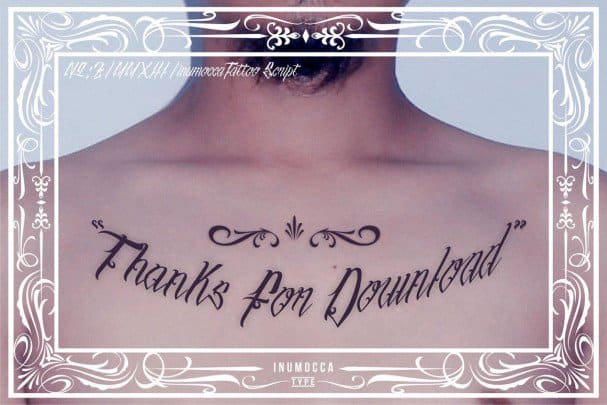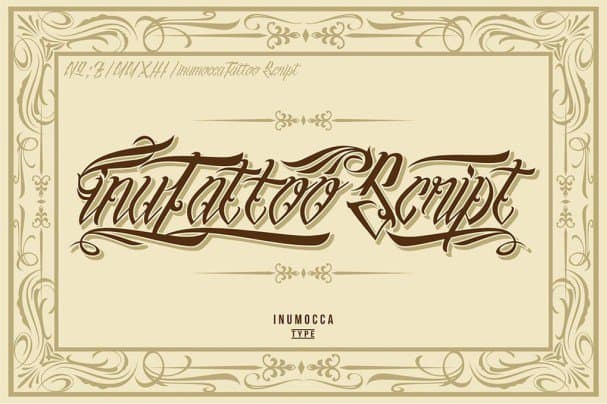
Inu Mocca Tattoo Script Font
Inu Mocca Tattoo Script Font is known for its calligraphic typeface. This font is a gift inside the Microsoft phrase and its one of the most useful font. It allows the house home windows cleartype textual content rendering machine, which wants to decorate text readability on liquid crystal show indicates. I anticipate you are a developer or font fashion designer, therefore, you return to our internet net web page for getting that typeface.